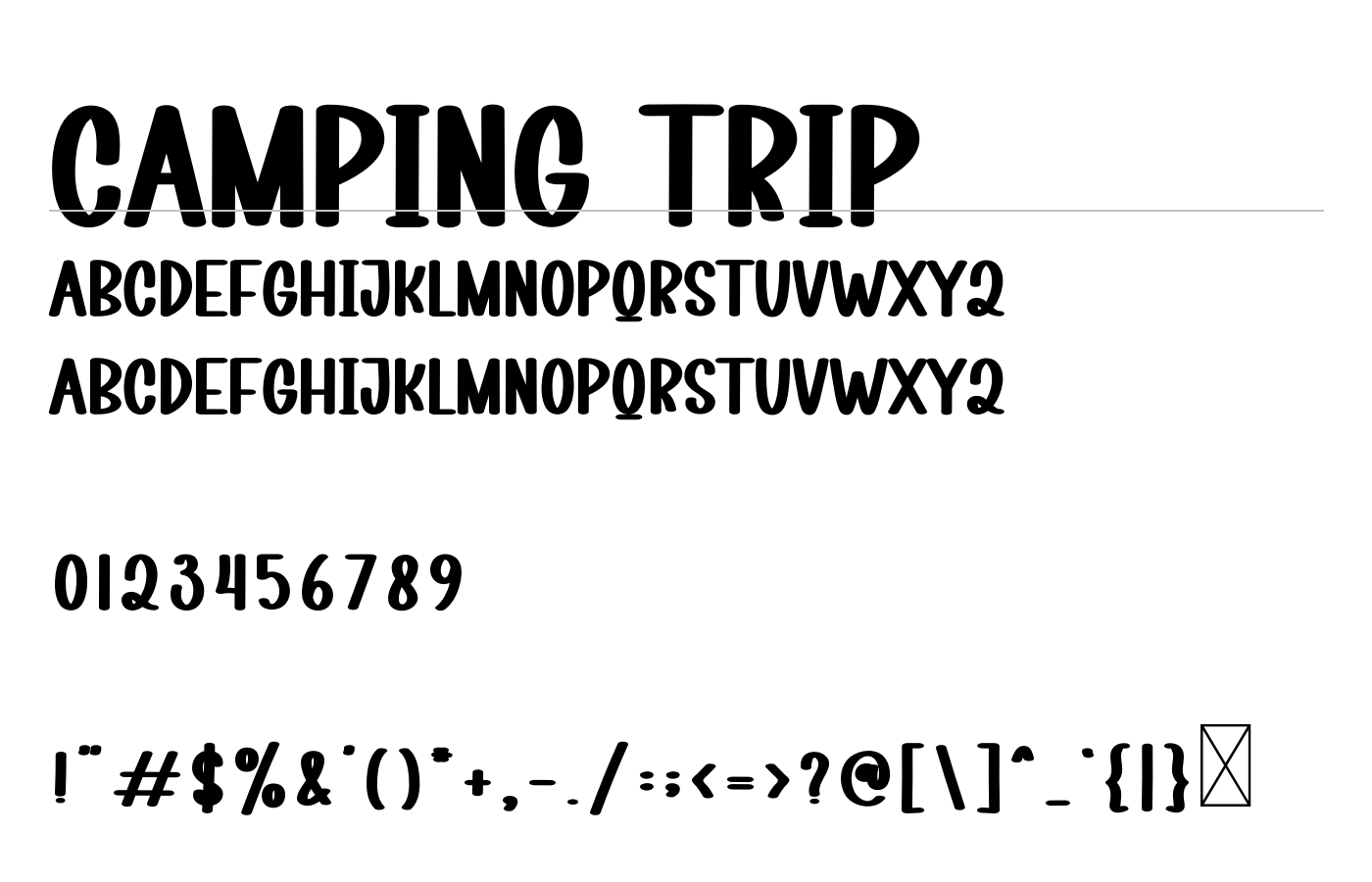
Camping Trip is a playful and bold sans serif font with a hand-drawn, slightly quirky feel, characterized by its rounded edges and uneven stroke widths. Its friendly and casual style makes it a perfect choice for fun, informal designs like outdoor event posters, children’s books, or lifestyle branding that seeks a warm, approachable vibe. This font’s cheerful personality works well for headlines or signage where a lively, inviting tone is desired.
Camping Trip Font